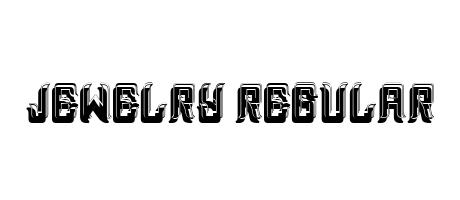
Jewelry
Jewelry Regular is a bold, chunky sans-serif typeface. Its letters possess a strong, almost embossed, three-dimensional quality with subtly bevelled edges, creating a sense of depth and weight. The style is simultaneously modern and retro, hinting at a playful yet powerful aesthetic. The overall impression is one of confident and slightly edgy design.